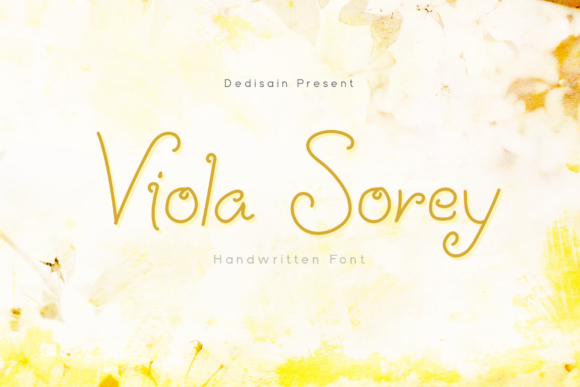
Behold the Viola Sorey Font, a symphony of elegance and sophistication that will effortlessly elevate your designs to new heights. Inspired by the graceful curves of a violin, this display font exudes a classic charm that will leave a lasting impression on your audience.
With its delicate strokes and timeless beauty, Viola Sorey is the perfect choice for those seeking an elegant and luxurious touch. Whether you're crafting branding materials, designing wedding invitations, or creating eye-catching logos, this font will add a touch of distinction to your work.
Step into a world of refined aesthetics and impeccable taste as you explore the endless possibilities of Viola Sorey. Its versatility knows no bounds, making it the ideal companion for a wide range of design projects. From captivating headings to alluring signatures, from stunning labels to enchanting logos, Viola Sorey will transform your creations into masterpieces.
Experience the visual delight of Viola Sorey on retina displays, where its every curve and detail is rendered with exquisite precision. This font has been meticulously crafted to ensure that your designs shine with clarity and brilliance, captivating your audience with their beauty and sophistication.
Immerse yourself in the world of Viola Sorey and let your creativity soar. This font is more than just a collection of letters; it's an invitation to embark on a journey of artistic expression. Discover the power of elegance and make your designs sing with the enchanting melodies of Viola Sorey.